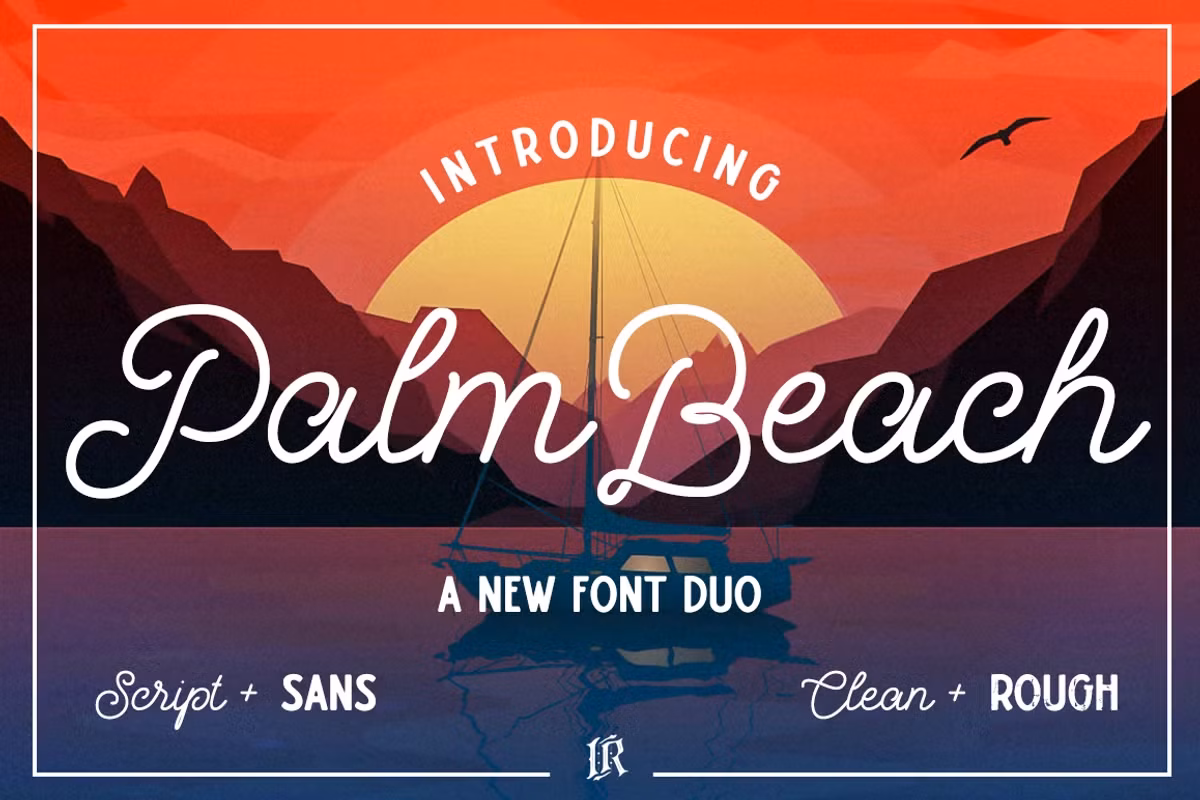
Palm Beach Font Duo Free Download
This versatile duo includes a breezy handwritten script and a clean modern sans-serif, making it perfect for branding, travel blogs, resort promotions, fashion lookbooks, and lifestyle packaging. Whether you're creating dreamy invitations or beachy social media graphics, Palm Beach brings warmth and elegance to every design.